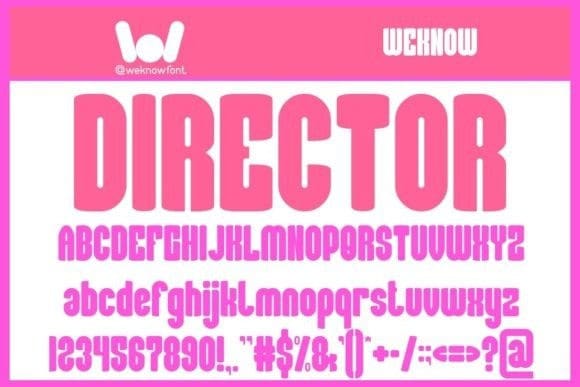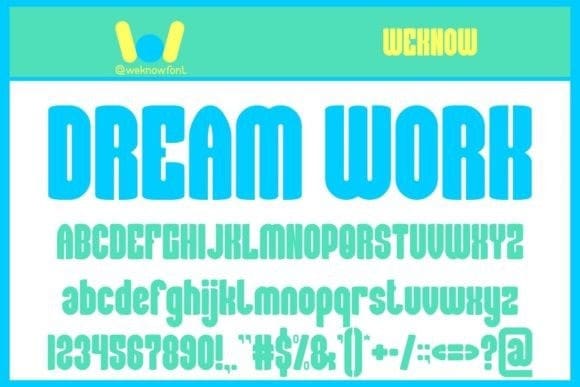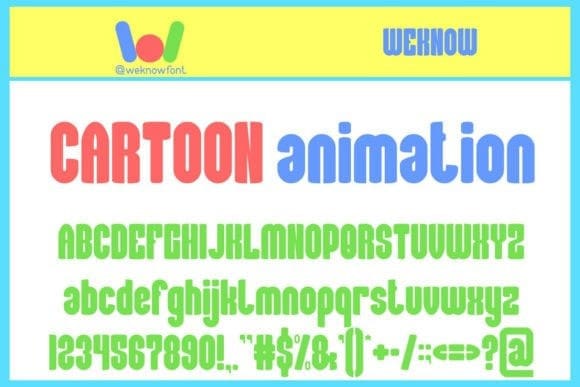
Cartoon Animation Font
Cartoon Animation Font, is a fun and friendly display font. It embodies playfulness and authenticity and is the perfect choice for any children’s activity or school project. Add this chunky lettered font to your designs and notice how it makes them come alive!